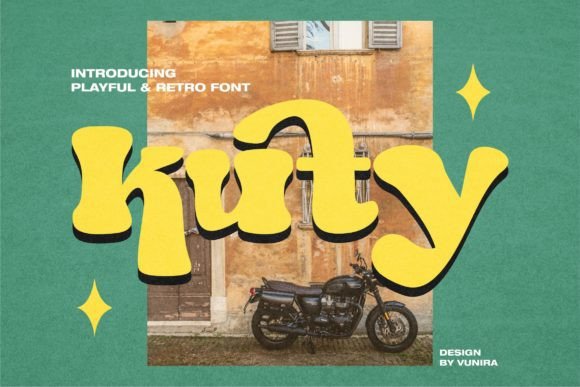
Introducing Kuty Font, the ultimate display font that oozes retro charm with a playful twist. This remarkable font family, meticulously crafted by Vunira, is a veritable treasure trove of stylish characters, perfect for creating captivating tattoos, logos, posters, and eye-catching headlines.
Immerse yourself in the world of Kuty Font, where each letter dances with personality and flair. Its unique script style adds a touch of whimsy and nostalgia to your projects, evoking the golden age of typography. Whether you're a seasoned designer or just starting out, Kuty Font is your gateway to creating designs that resonate with your audience.
Unlock the endless creative possibilities with Kuty Font. Its versatility extends beyond the world of tattoos, making it an exceptional choice for branding, packaging, and social media graphics. Let your imagination soar as you combine Kuty Font with vibrant colors and dynamic layouts to create designs that leave a lasting impression.
Don't settle for ordinary; embrace the extraordinary with Kuty Font. Its playful nature and retro aesthetic will transform your creative endeavors, captivating your audience with its undeniable charm. Unleash the power of Kuty Font today and elevate your designs to new heights!